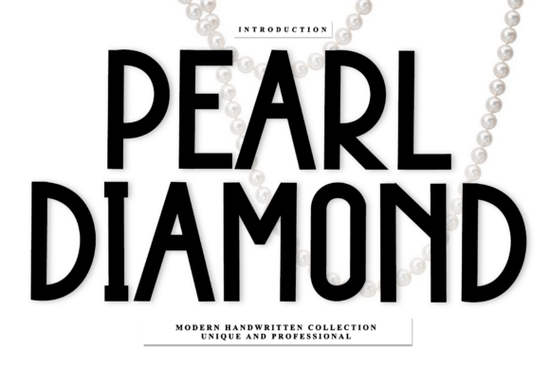
When you need a handwritten touch that still reads clearly, finding the right typeface matters. Pearl Diamond Font brings a sophisticated rhythm to your projects, balancing a calligraphic style with a warm, organic aesthetic. Its defining characteristic is the use of sweeping, looping ascenders that create a sense of customized, artisanal artistry. Whether you are designing labels for small-batch jams or creating invitations for upscale events, this tool helps convey craftsmanship without sacrificing readability.
Where does this script shine in real-world projects?
This typeface works exceptionally well for artisanal food branding. Imagine a coffee shop logo or a gourmet cookie wrapper; the loops invite the eye to travel across the surface, suggesting quality and care. Boutique product packaging is another strong match. Because the weight varies slightly between strokes, it mimics the pressure of a hand holding a fountain pen, which adds credibility to handmade goods.
Upscale lifestyle marketing also benefits from its tone. It isn't stiff or corporate; instead, it feels personal yet polished. You might see it used on menu headers, social media overlays, or website hero sections where a designer wants to introduce a topic with flair. It sits comfortably alongside serif body text, pairing well for editorial titles that need a bit of personality.
What makes the letterforms unique compared to others?
The beauty lies in the connection points and the flourishes. Unlike rigid block letters, the ascenders curve gracefully upward, giving text a dynamic energy. This flow prevents the design from feeling static, which is crucial for wedding invites or luxury branding where emotion plays a big role. However, it maintains enough consistency to remain professional in commercial contexts.
Robbin offers a rounder, friendlier take on the genre if you are targeting a younger audience, whereas Pearl Diamond leans slightly more mature. For those looking to dive deeper into this specific option, you can view the full details and previews on the dedicated product page linked here.